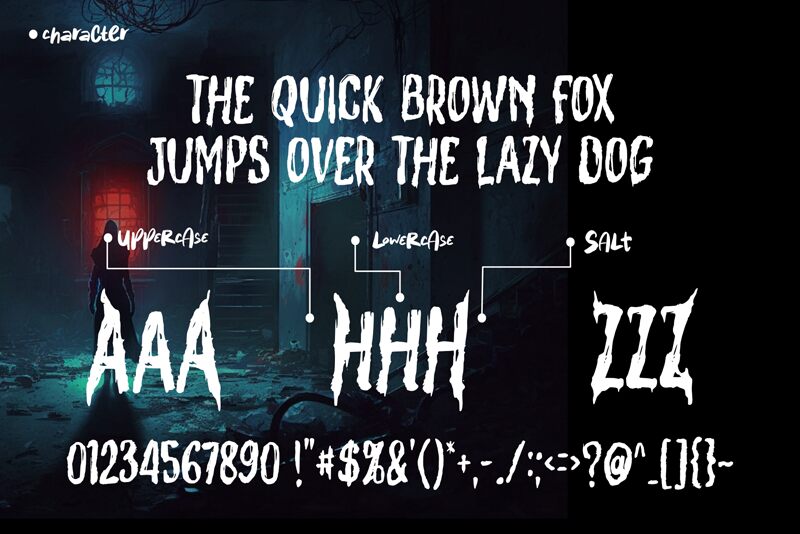
Heatizen
Heatizen font by Horror Font is a scary display free font with a rugged and distressed appearance. The condensed characters possess an organic texture and raw aesthetic, creating an energetic vibe that conveys authenticity or rebellion. With its urban influence, the font evokes emotions linked to grassroots movements and DIY culture, presenting an excellent choice for projects with a twist.
Reminiscent of mid-20th century counterculture designs, Heatizen is perfect for music festivals and craft breweries’ branding. Achieve exceptional results in posters, apparel, album covers, book covers, advertisements aimed toward younger audiences with unconventional style appreciation—and different modern art-related presentations.